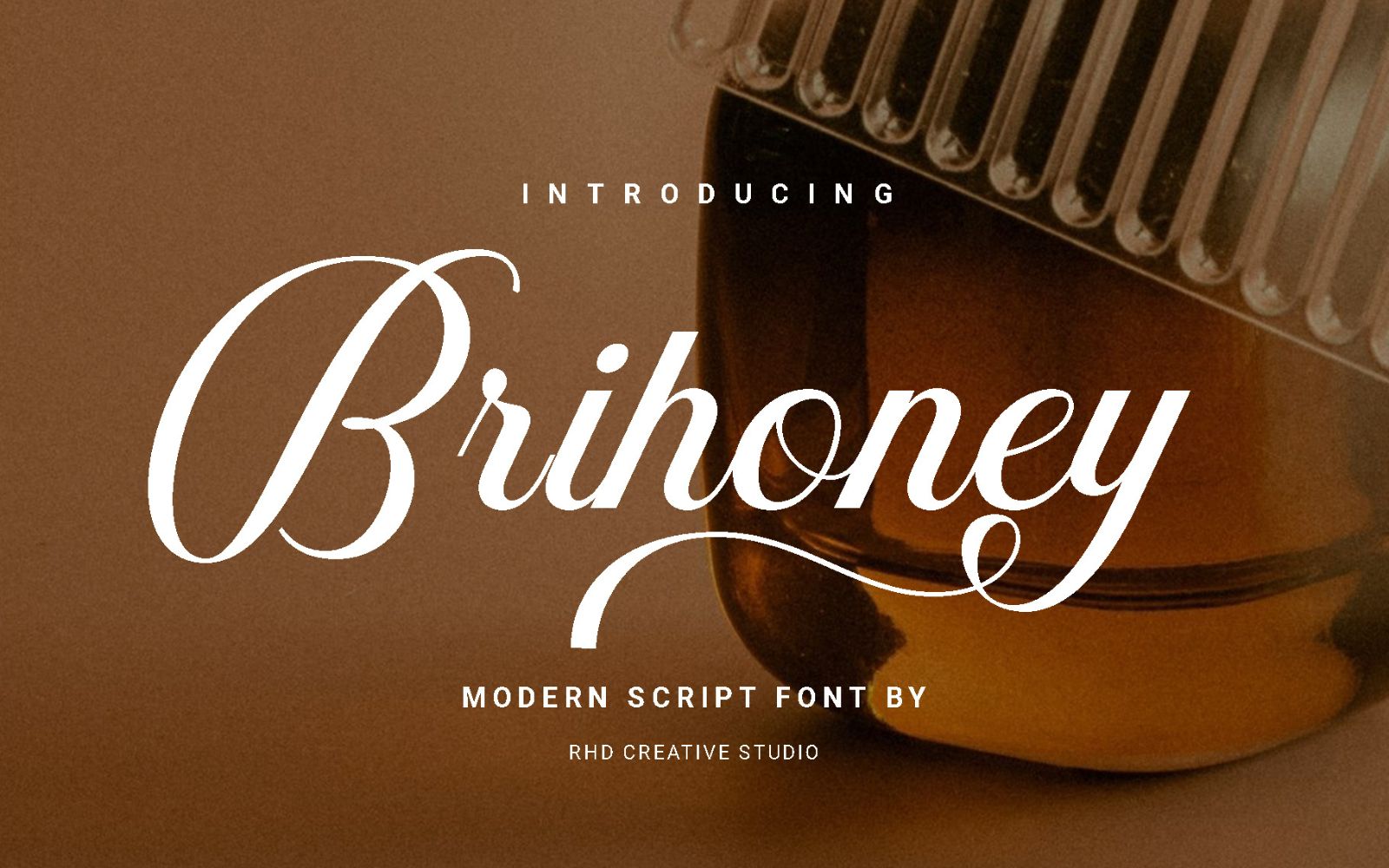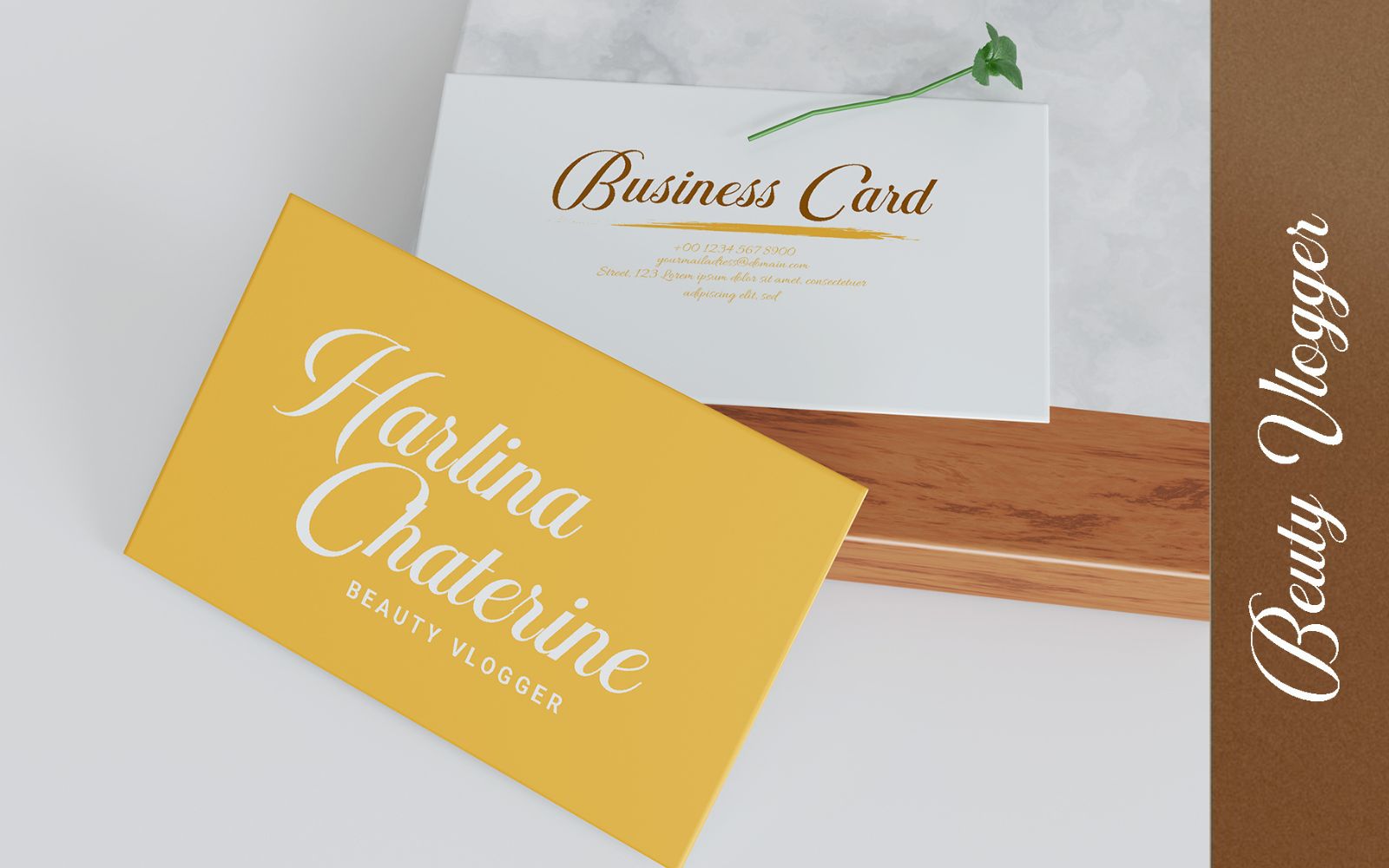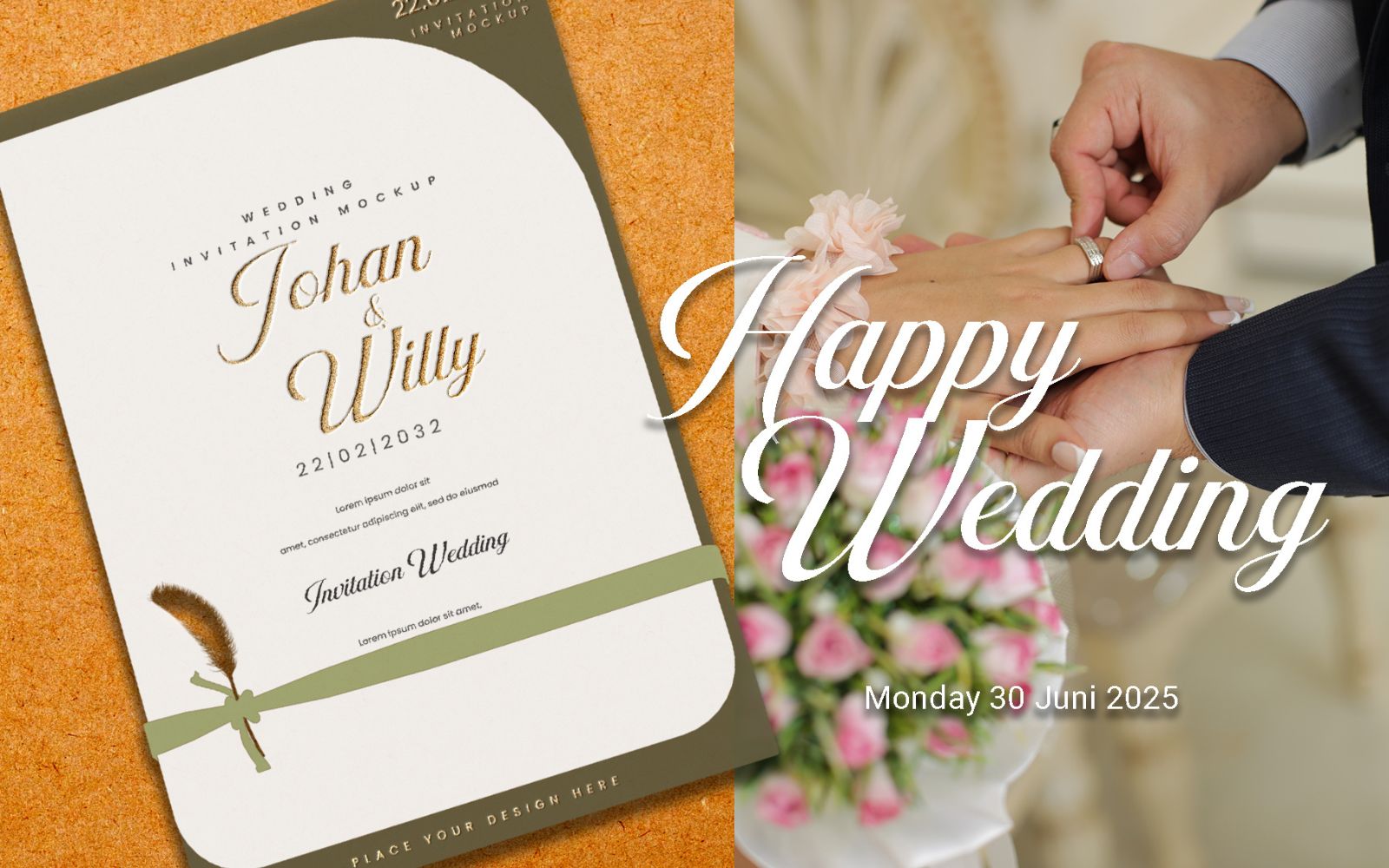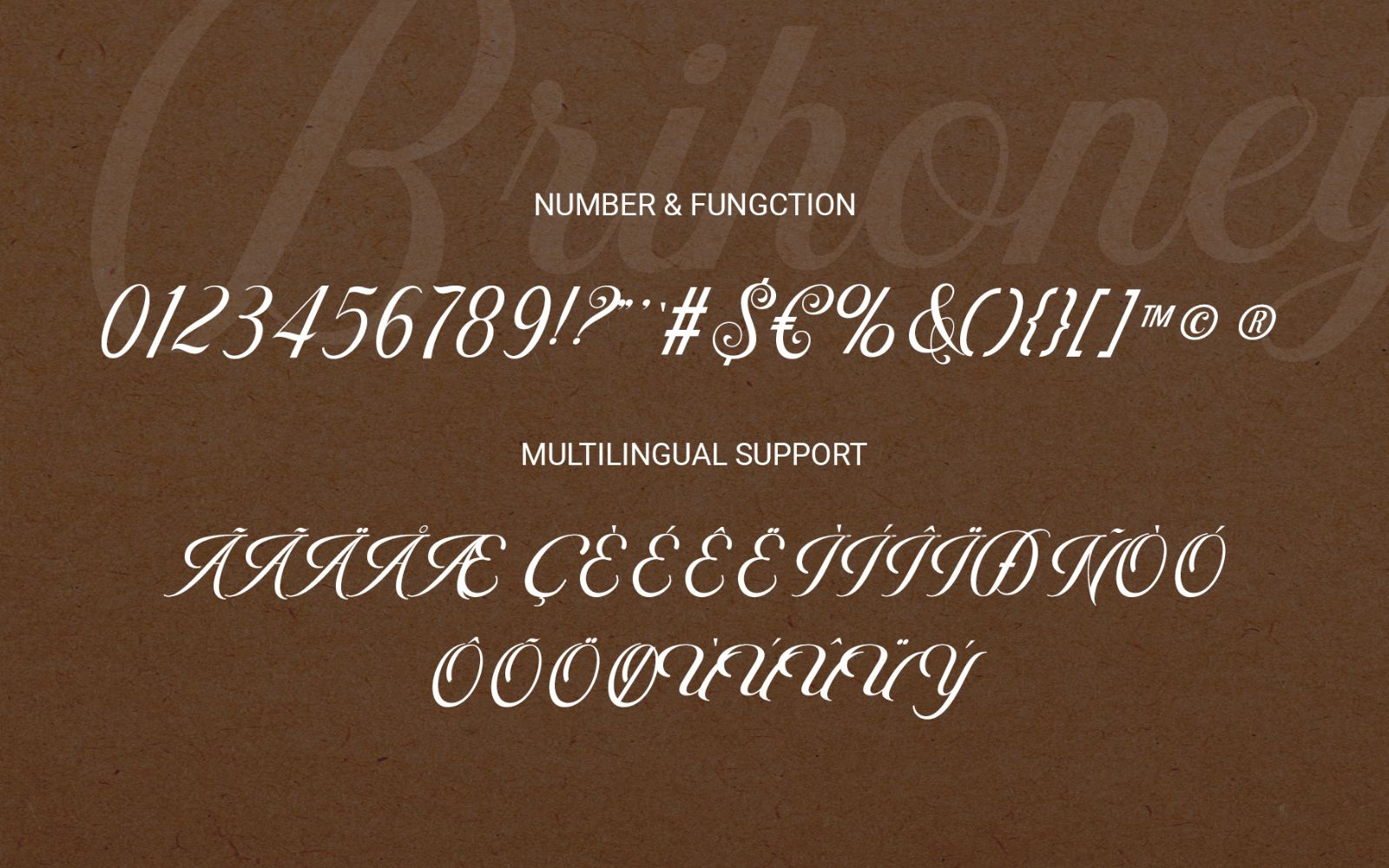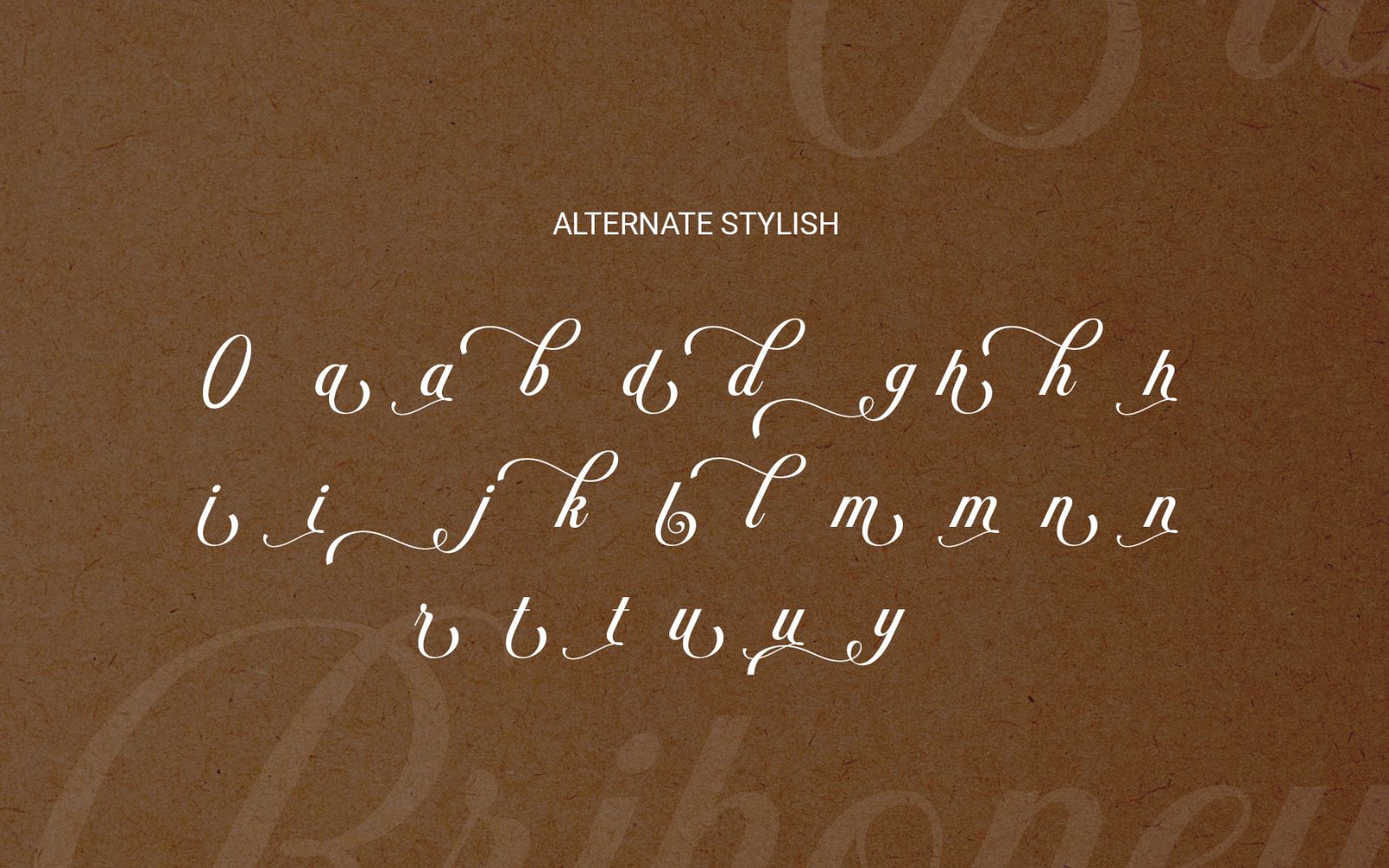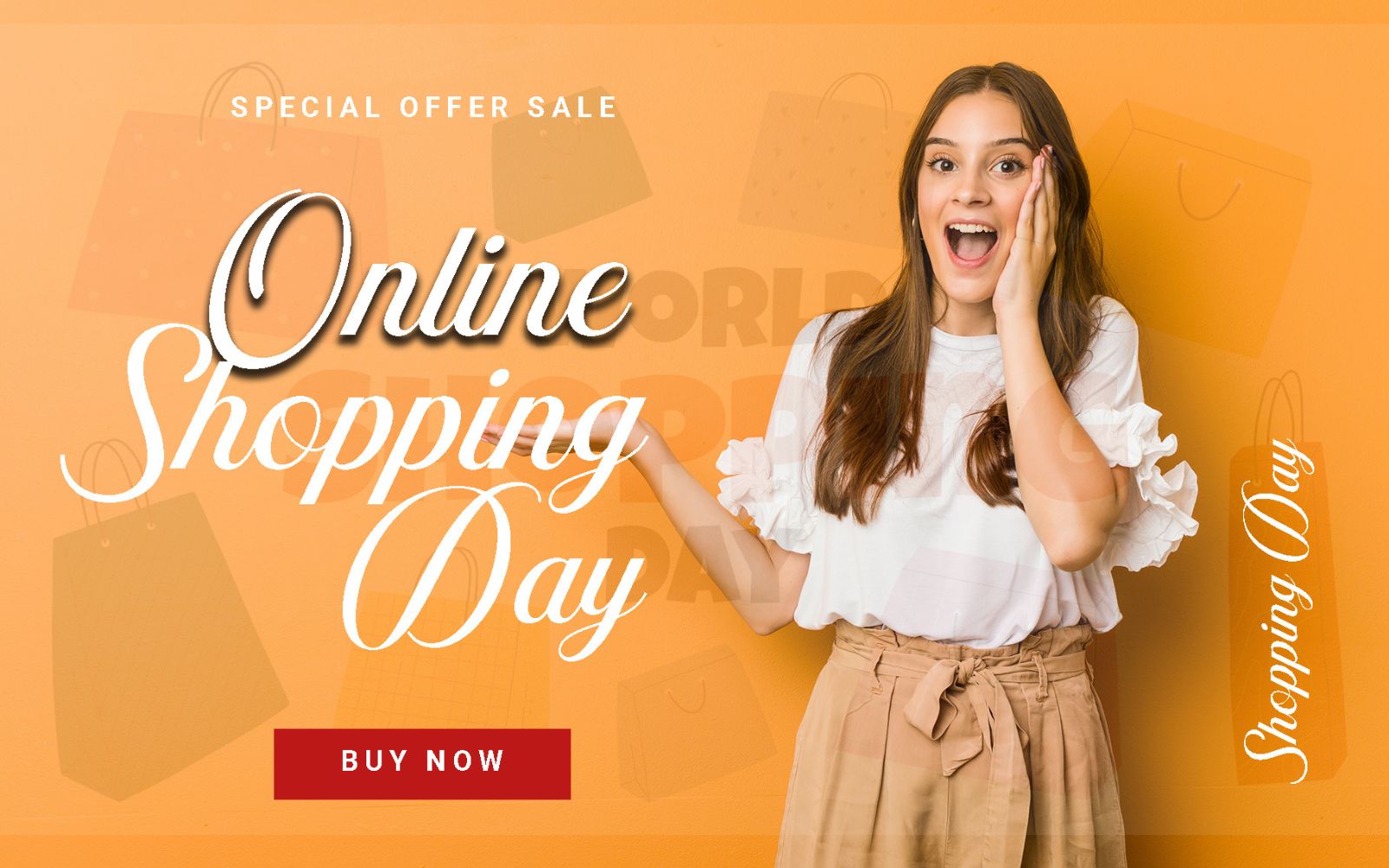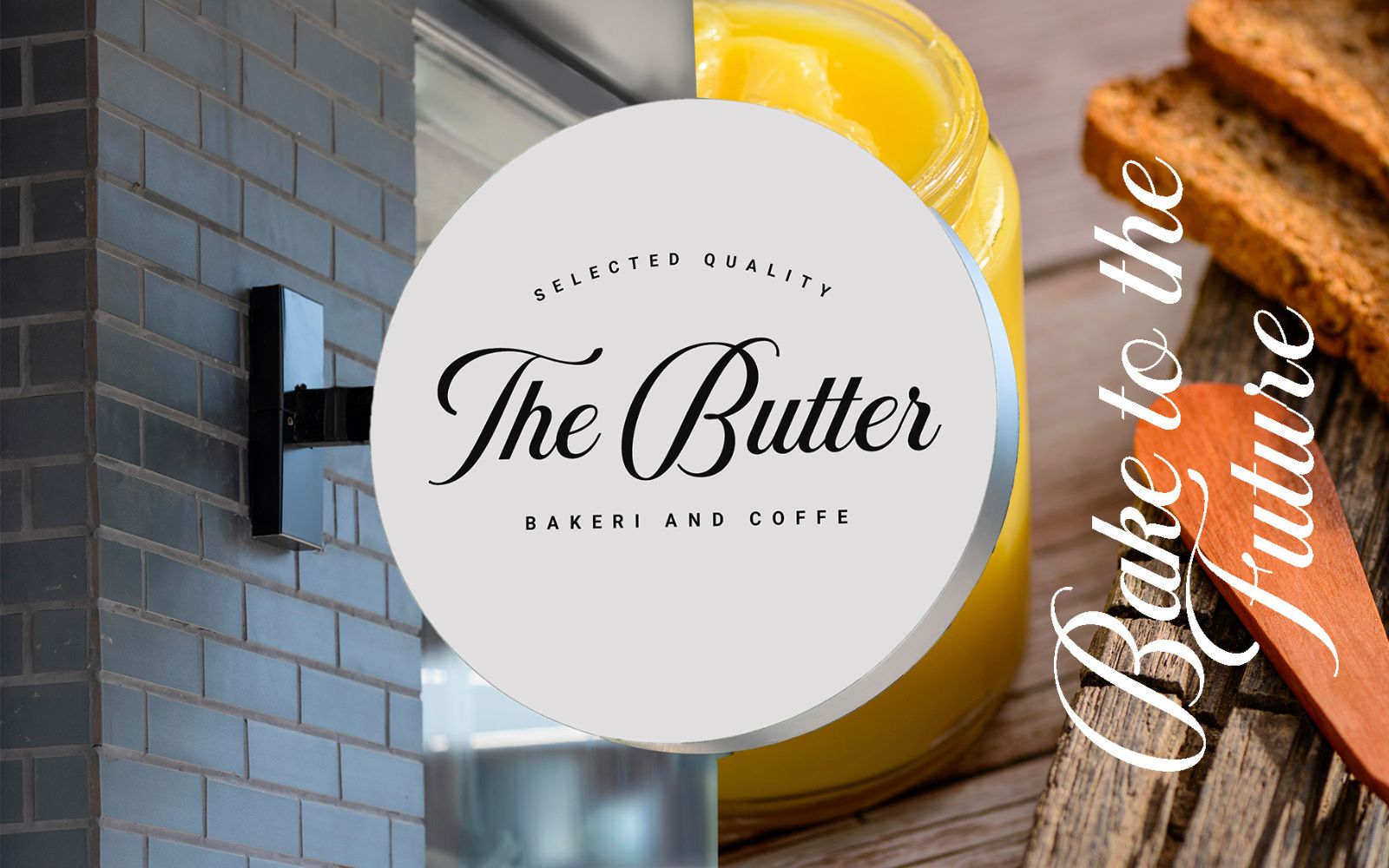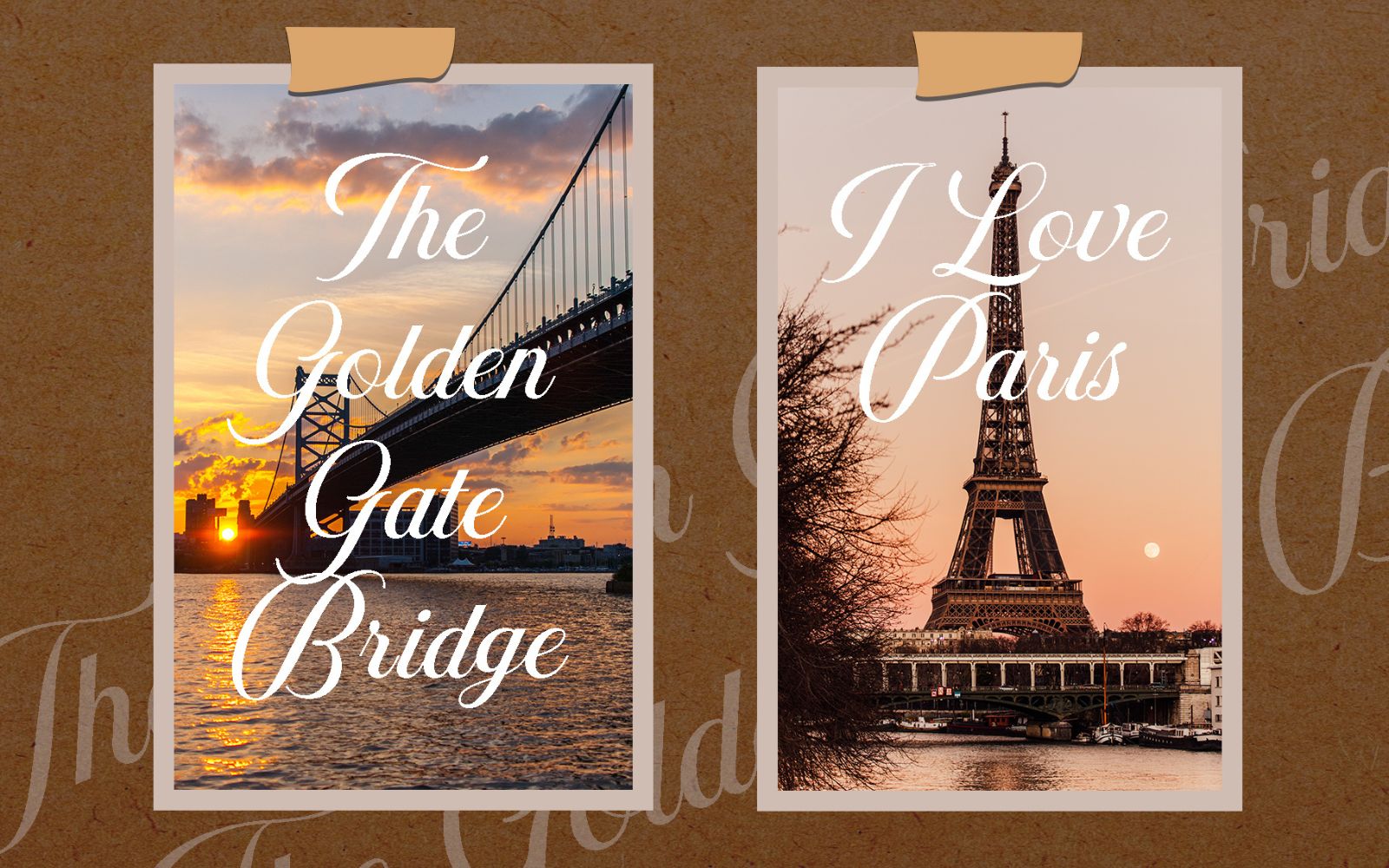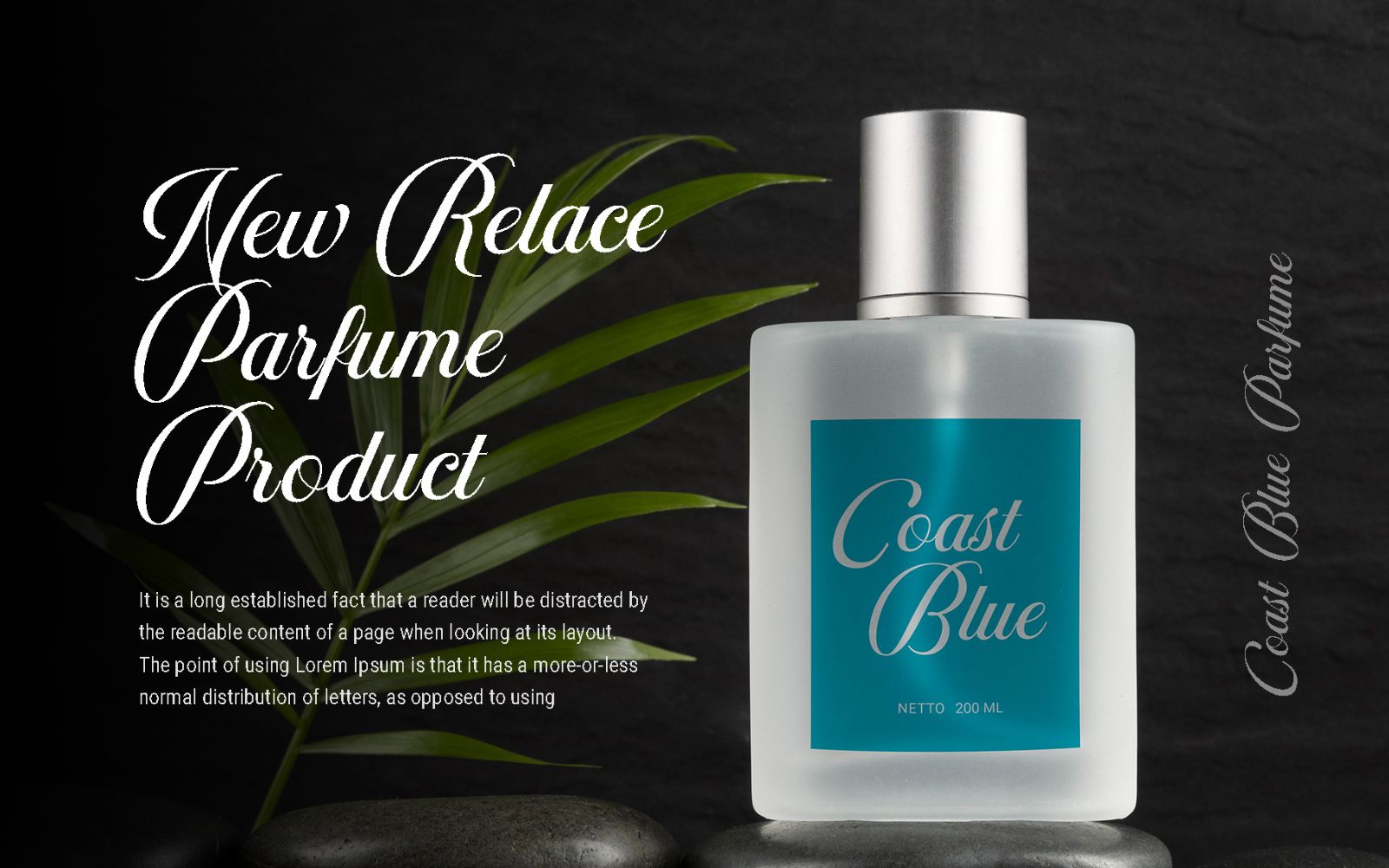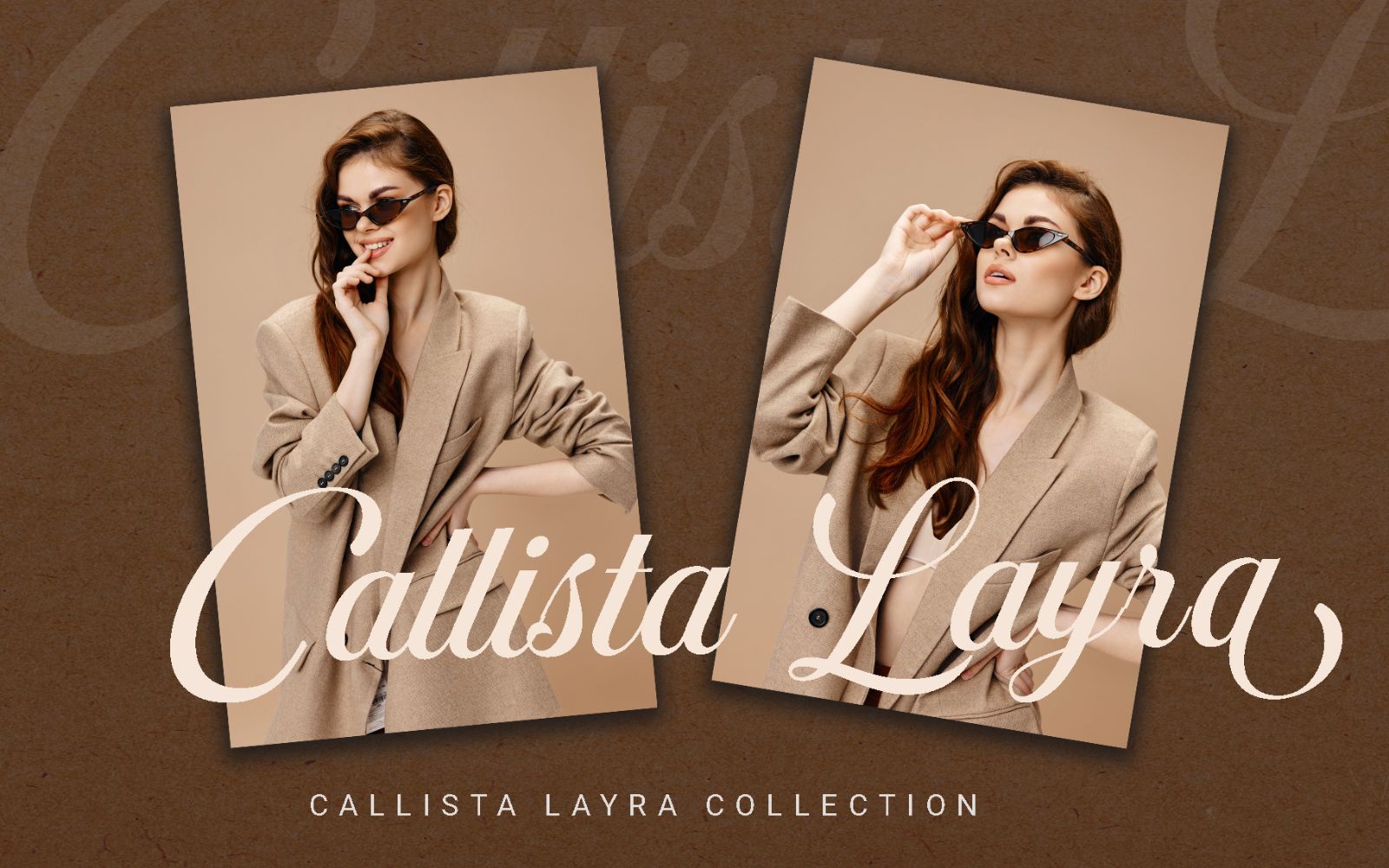
Brihoney – Modern Script Font
Brihoney – Modern Script Font with Handmade character. Brihoney – Modern Script Font , Modern font to make your design project stand out!
Brihoney – Modern Script Font with Handmade character. Brihoney – Modern Script Font , Modern font to make your design project stand out! Brihoney is a perfectly choice for any creative endeavor, creating, modern, chic, lifestyle design such as logotype, title, cover, branding, invitations, wedding designs, display and magazine, social media posts, advertisements, printed quotes, product packaging, corporate brand, product designs, labels, photography, watermarks, special events and any other project with modern touch.
**FEATURES**
– Uppercase and Lowercase letters
– Numbering and Punctuations
– Multilingual Support